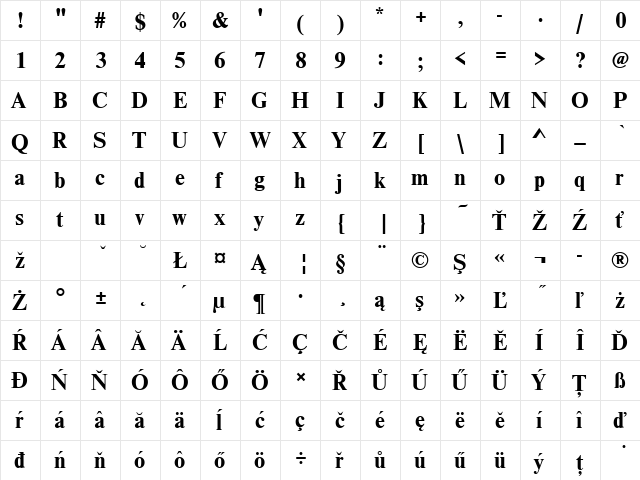
NimbusRomDEE Bold
Design Context for NimbusRomDEE Typeface
NimbusRomDEE offers clean, dependable letterforms without strong stylistic allegiance, making it a practical choice for designers who need flexibility. Its bold stroke weight gives it real presence on the page.